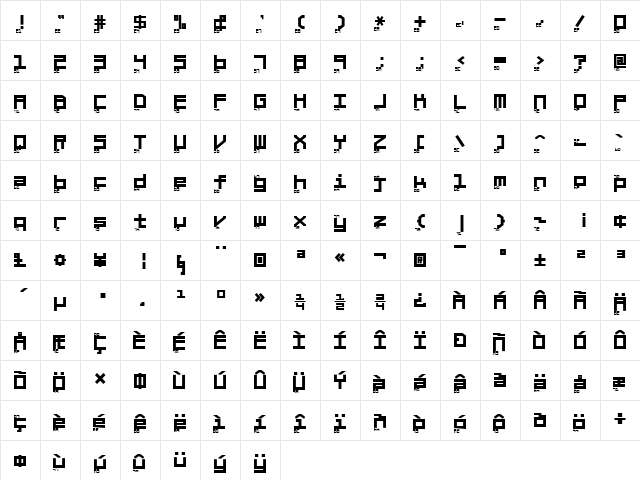
Braciola MS ExB Ascii Regular
| Foundry | zerofonts - a kmzero fonts foundry |
| Designer | Francesco Canovaro |
Design Context for Braciola MS ExB Ascii Typeface
Braciola MS ExB Ascii is a composed and adaptable typeface that performs quietly and consistently across a wide range of design contexts.